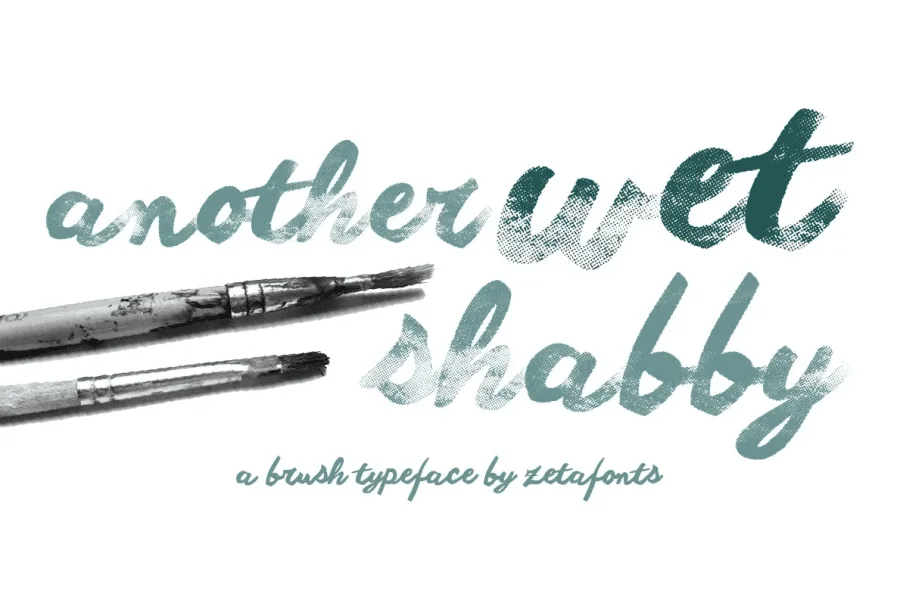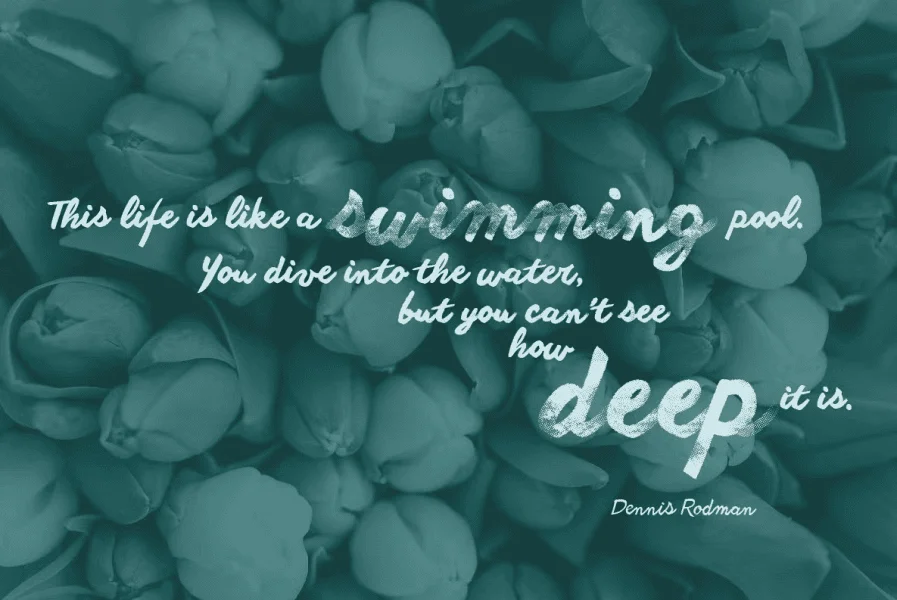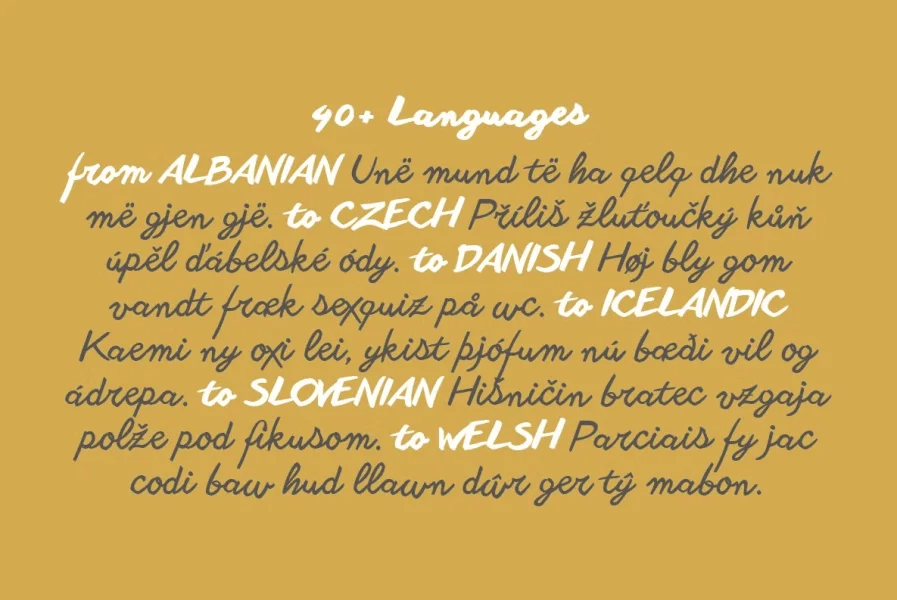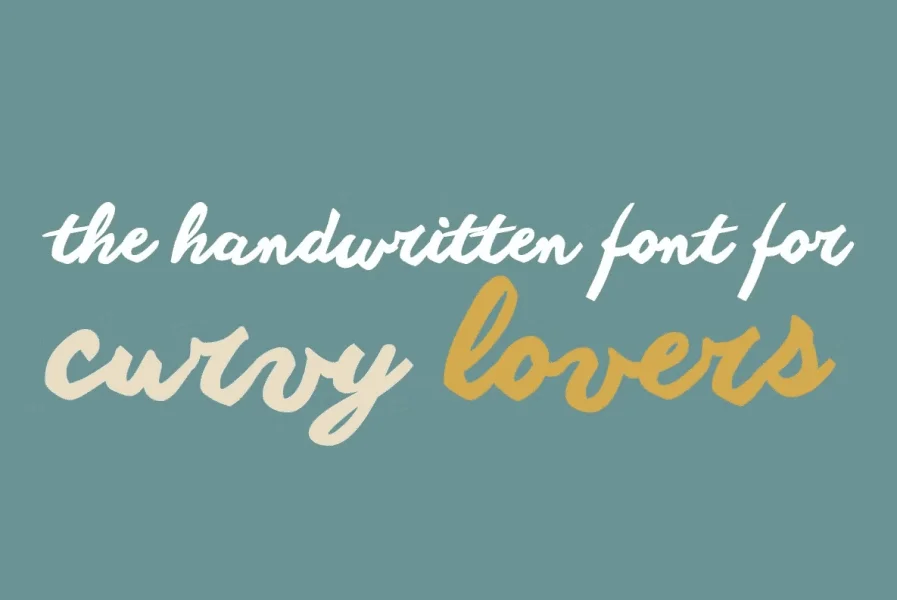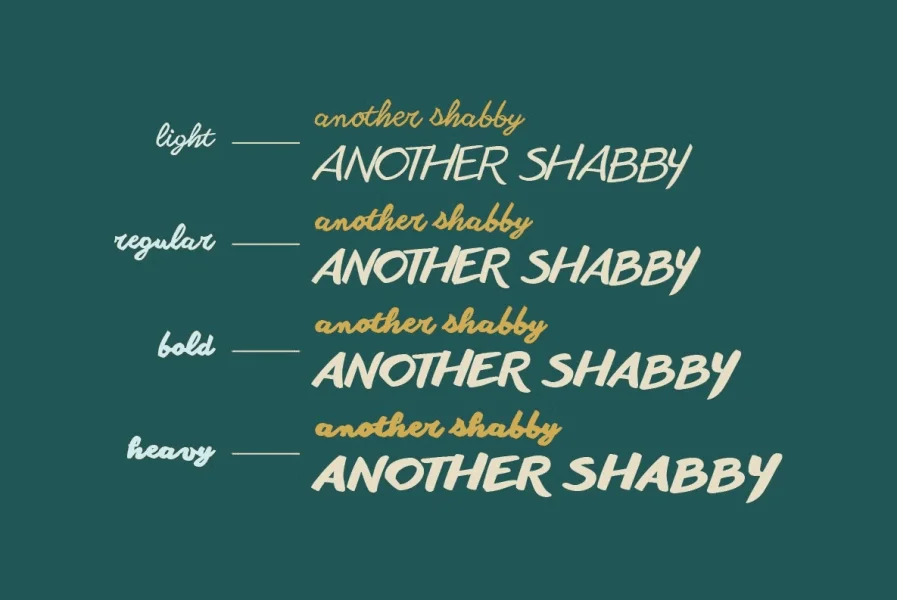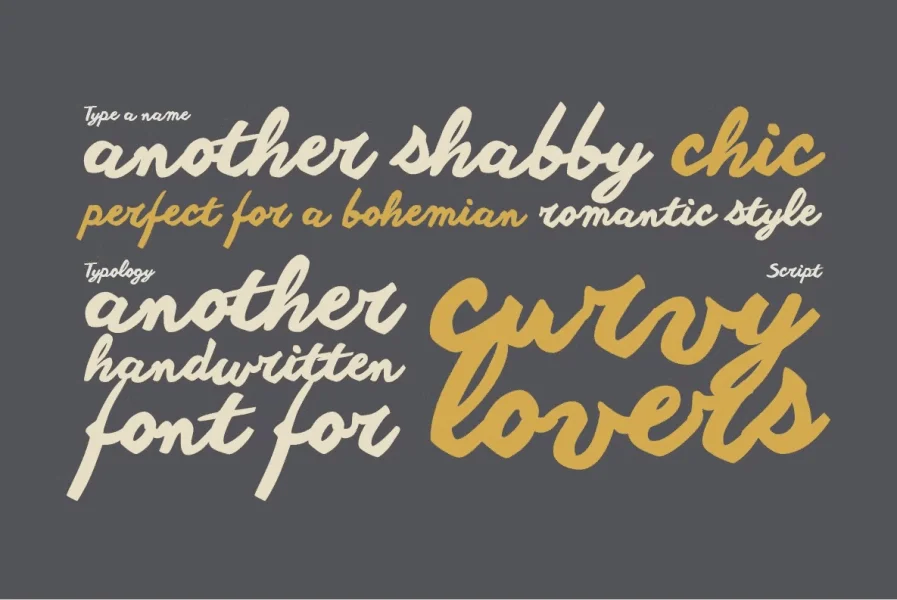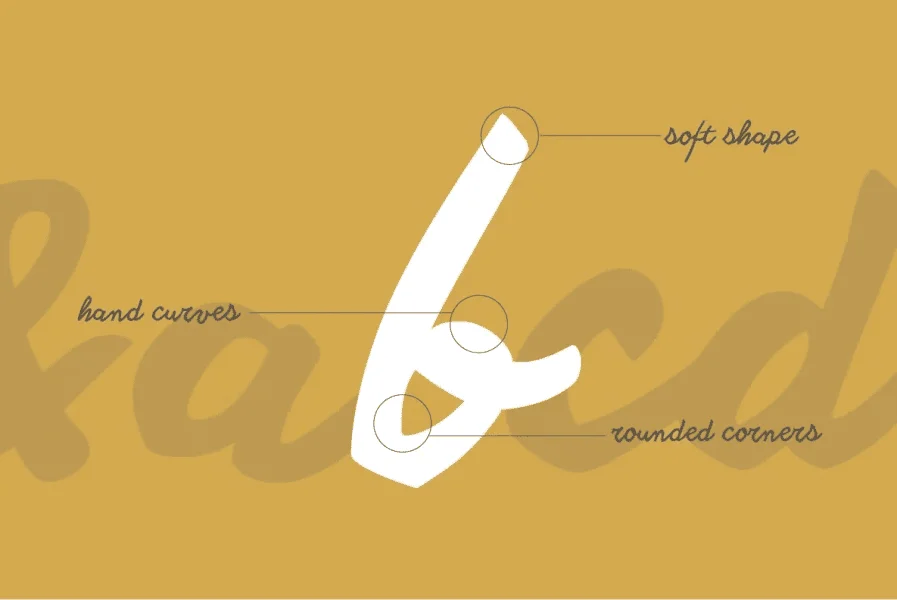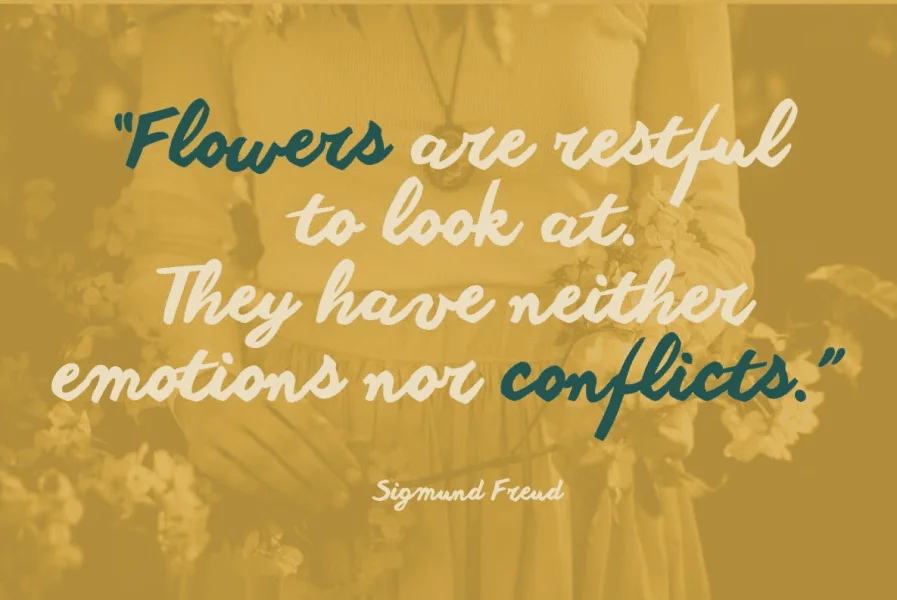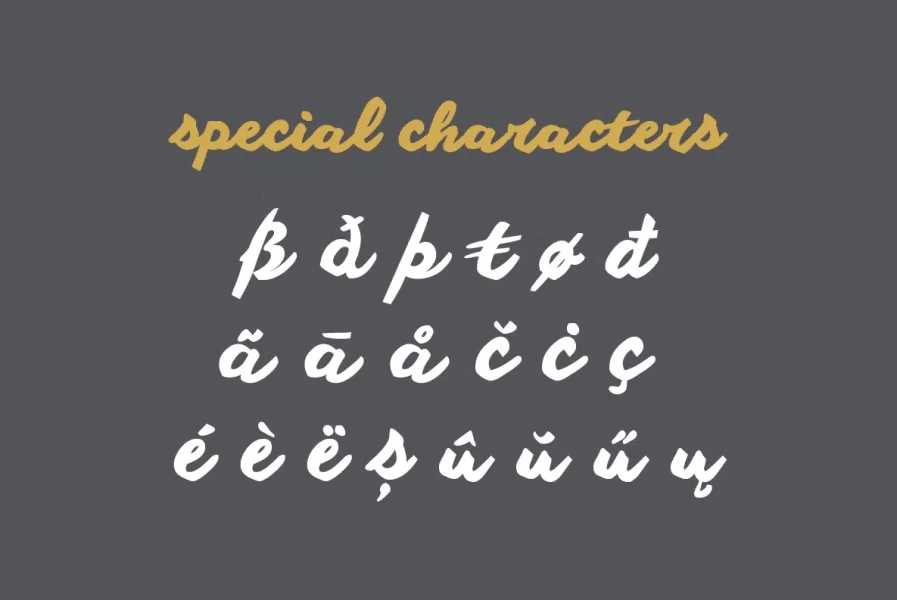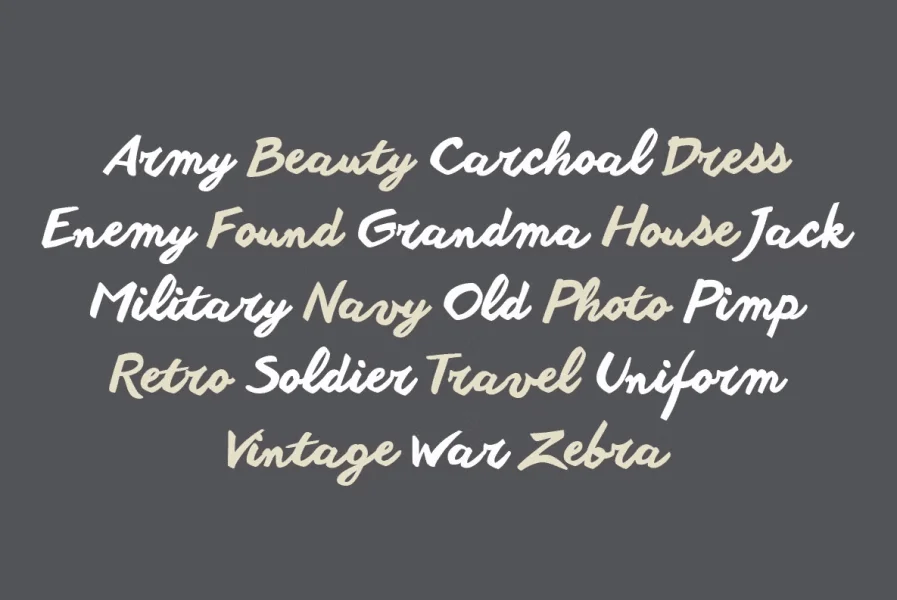
Another Shabby is a script typeface family. Its shapes are defined by rough, wide brushstrokes, slightly rounded in corners to mimic the feel of a real handwritten casual script. This font is for PERSONAL USE ONLY! For commercial licence please visit our site: